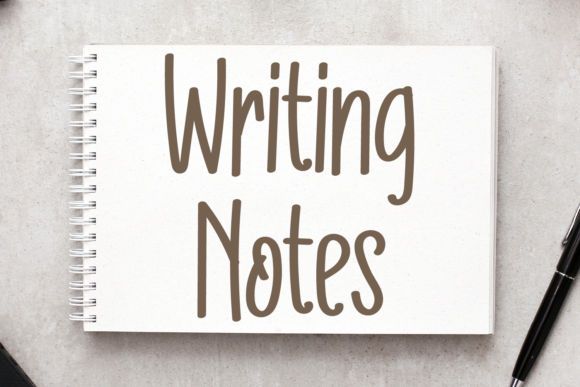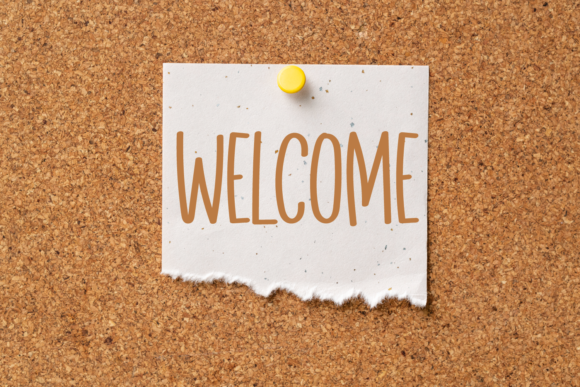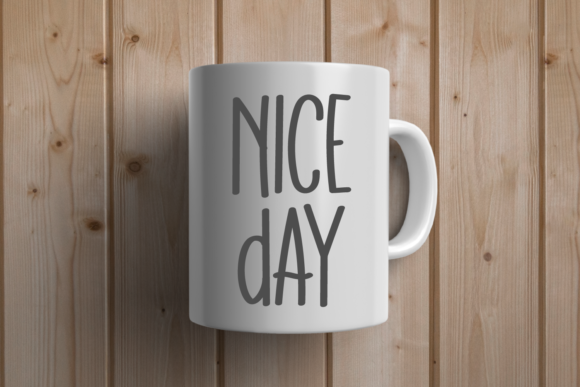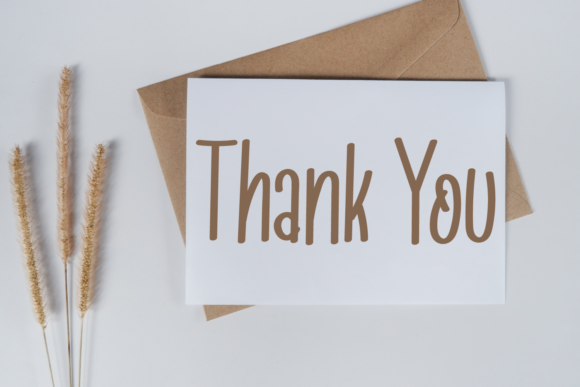
Writing Notes Font
Writing Notes is a simple handwritten font. This neat script font has a wide spectrum of applications ranging from greeting cards to headlines and is guaranteed to add a clean feel to your next project.